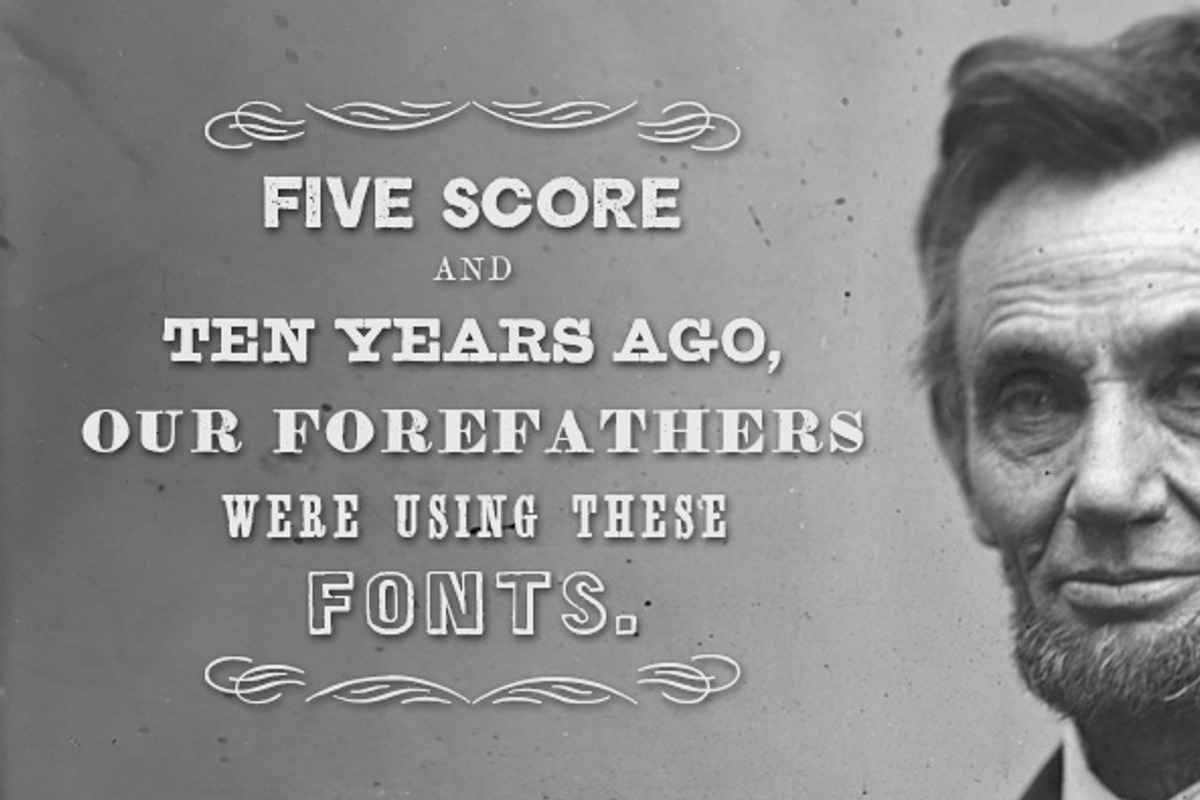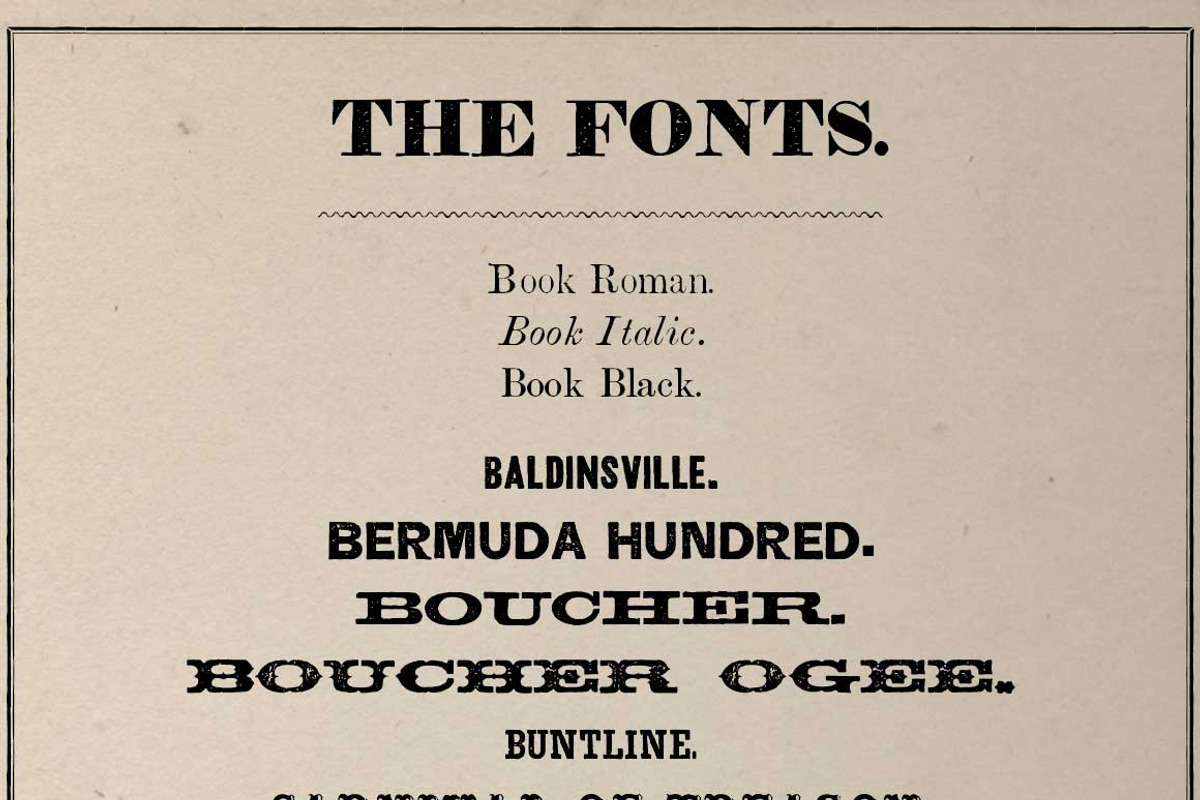
60 Fonts from the Civil War Era
60 Fonts from the Civil War Era by New Blazing Star Press is a font selected for branding, posters, packaging, typography.
Why 60 Fonts from the Civil War Era is worth a look
60 Fonts from the Civil War Era by New Blazing Star Press fits naturally into Branding, posters, packaging, typography.